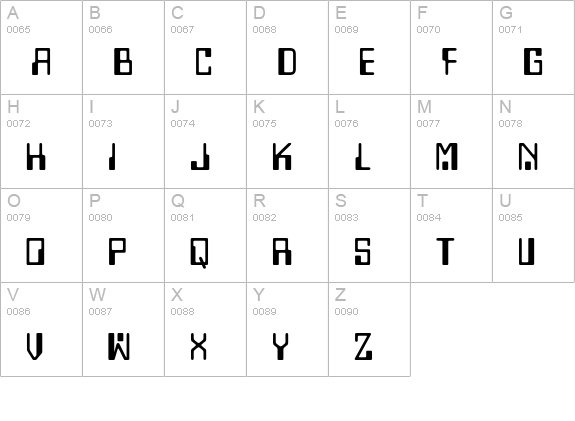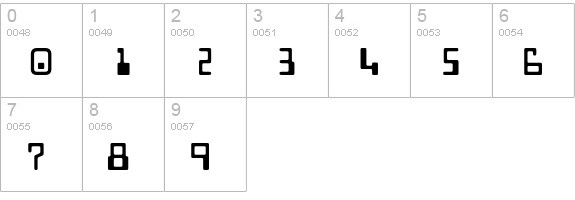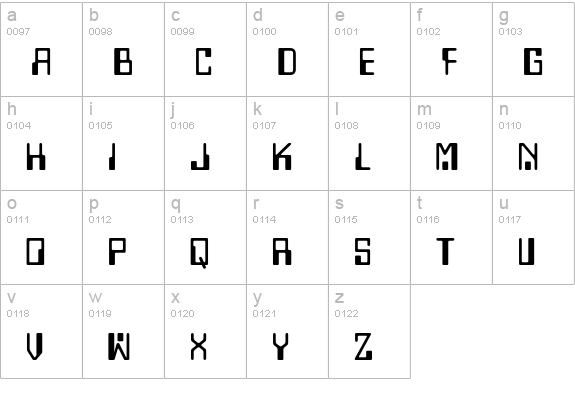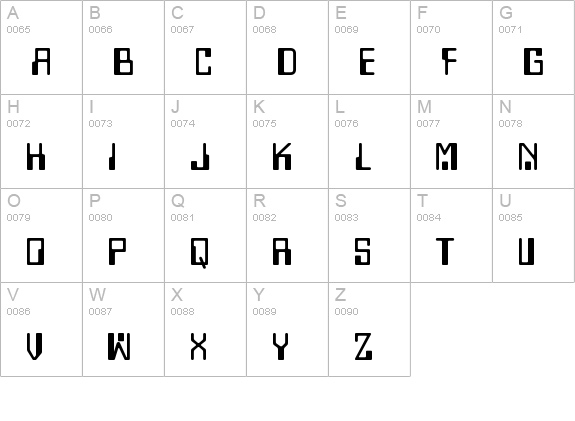
AT Computer Font Details
AT Computer font is a sleek and modern typeface perfect for tech-related projects and designs. With its clean lines and sharp edges, this font exudes a sense of professionalism and sophistication. The geometric shapes give it a futuristic appearance, making it ideal for websites, logos, and branding materials. Best of all, AT Computer font is completely free to download at FontsMarket.com. Don't miss out on this versatile and stylish font for all your digital needs.